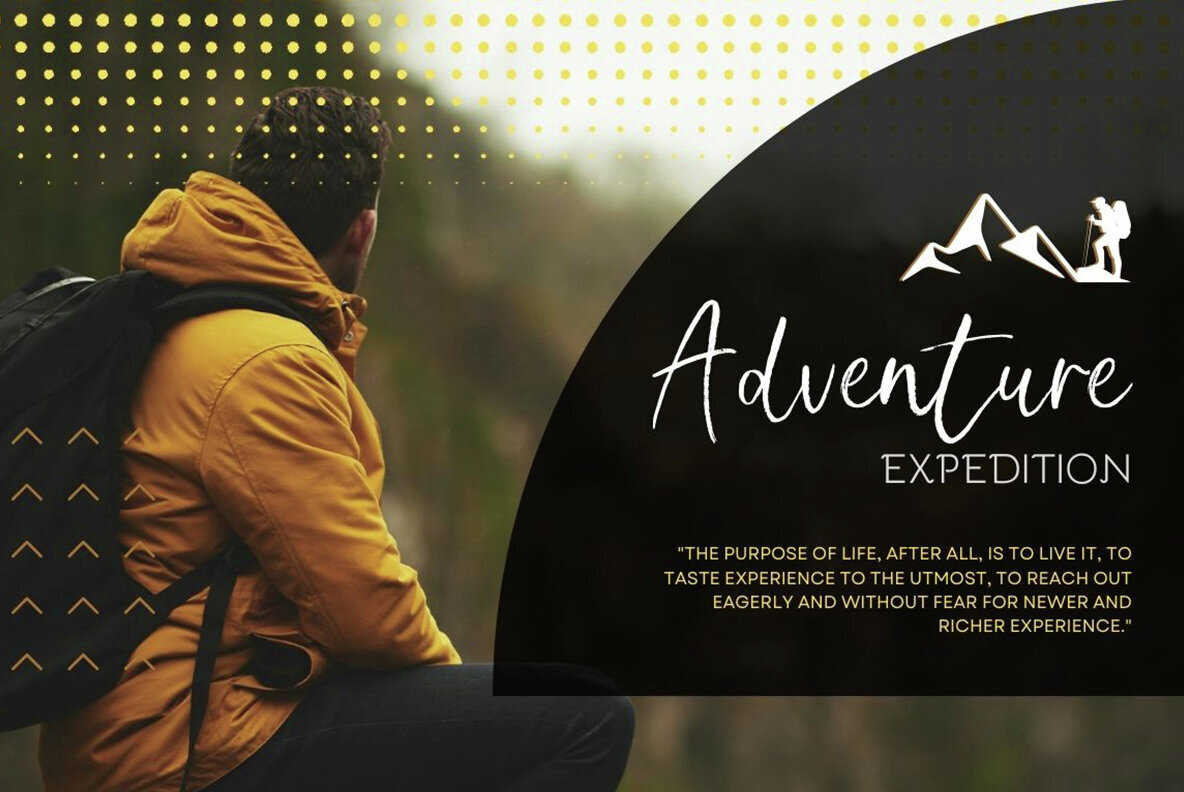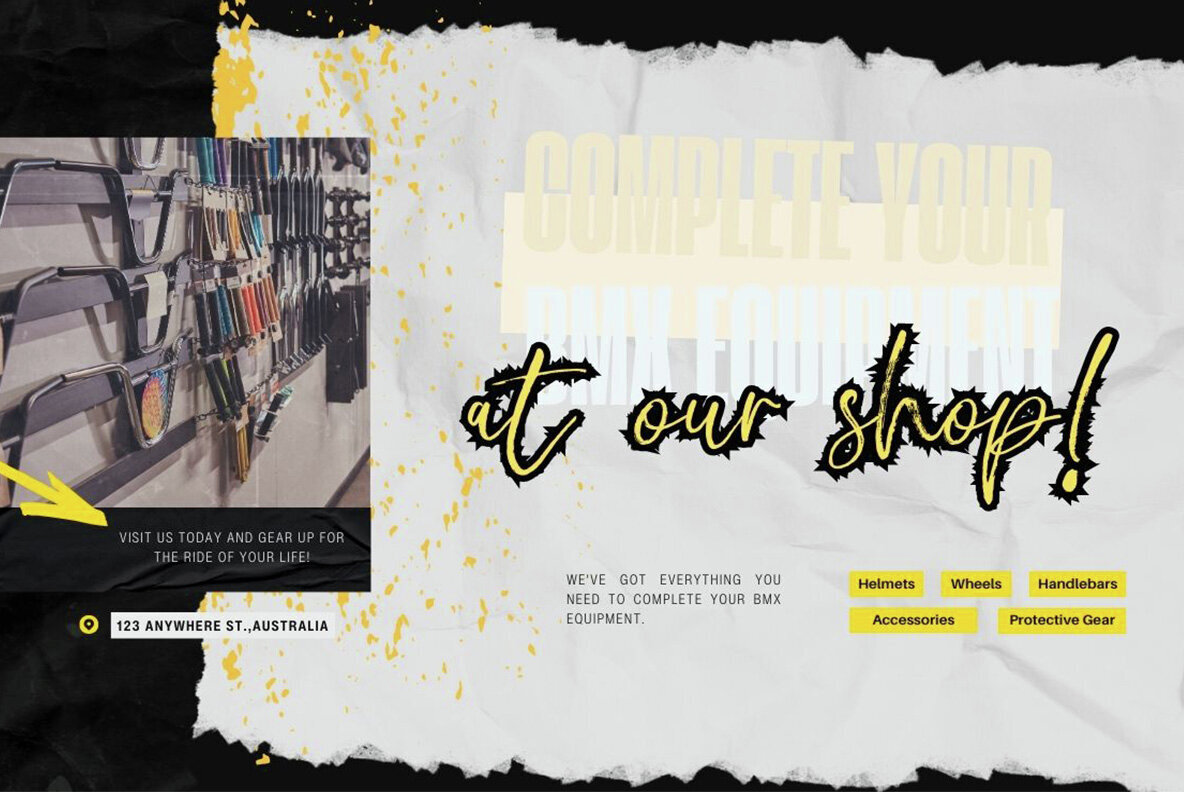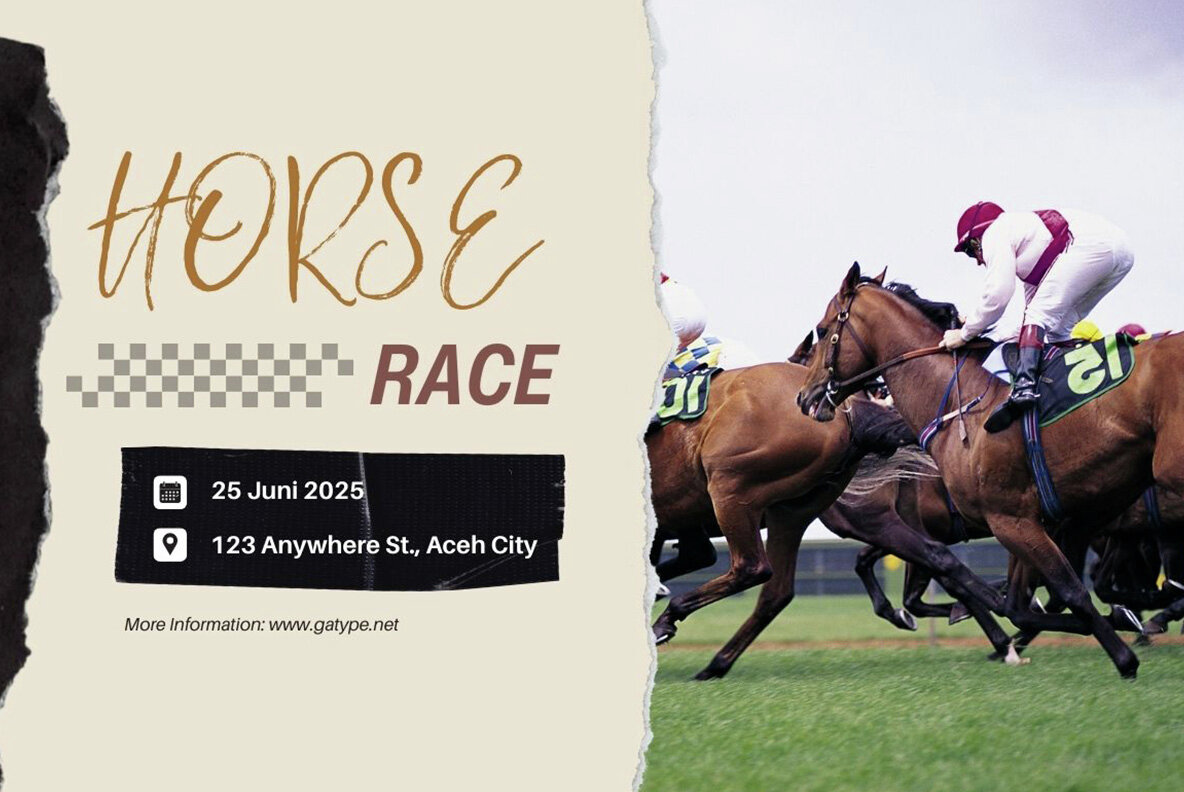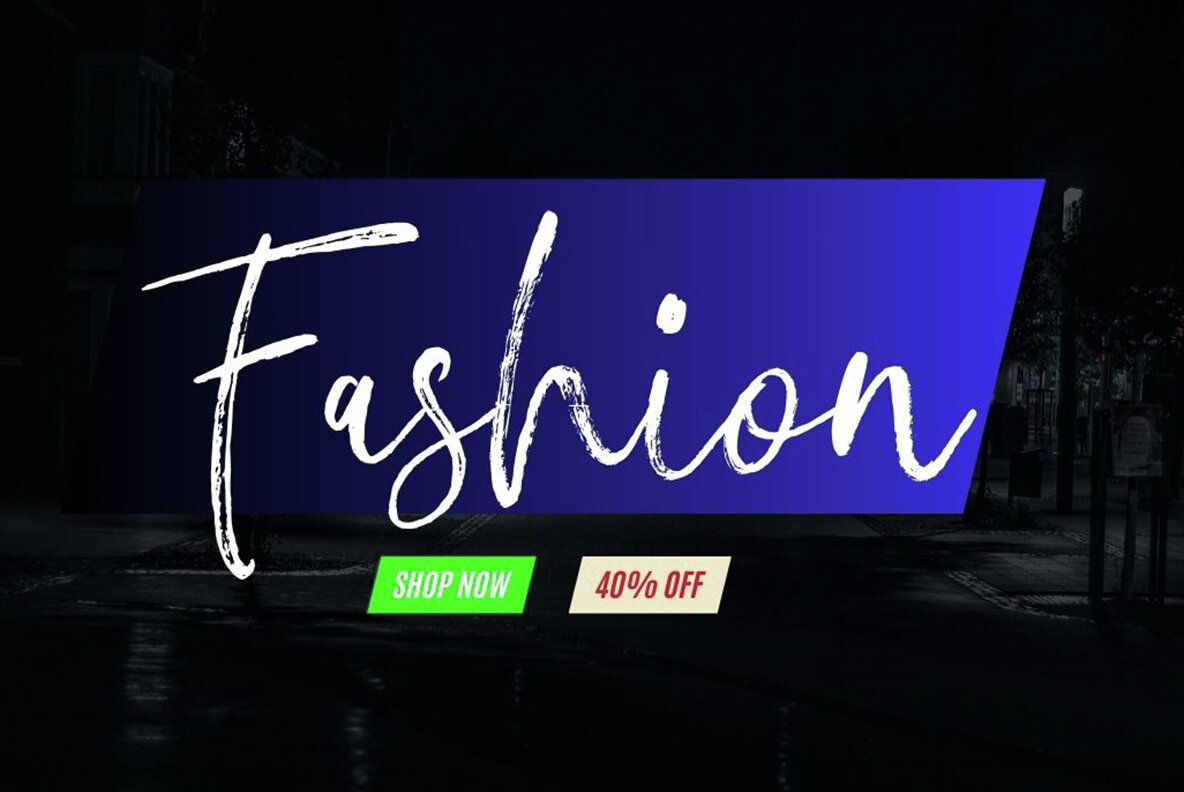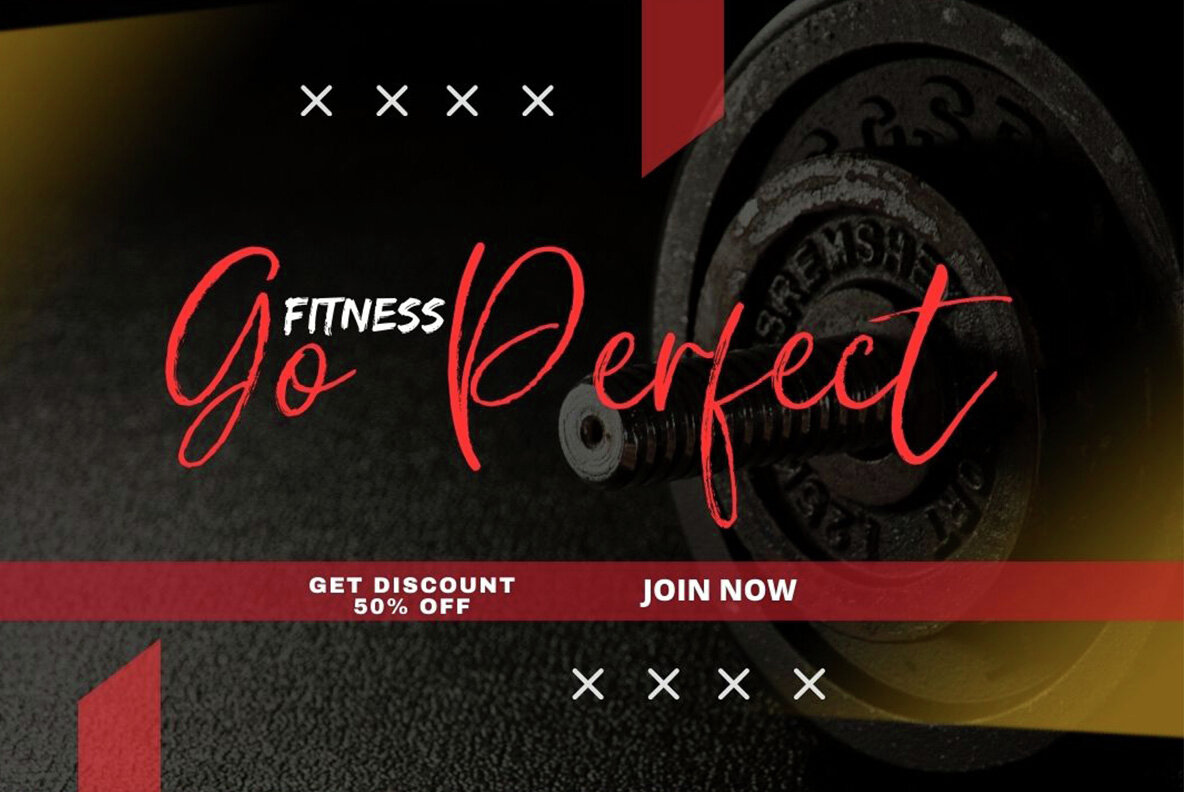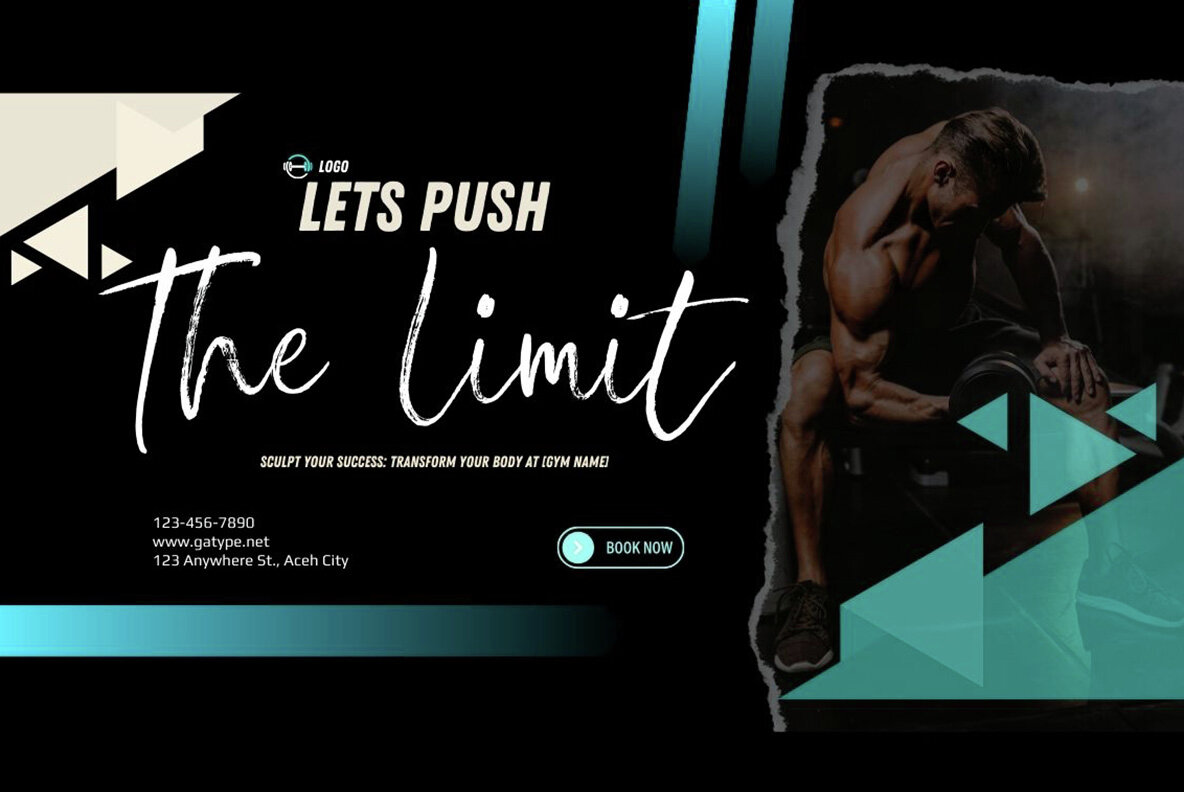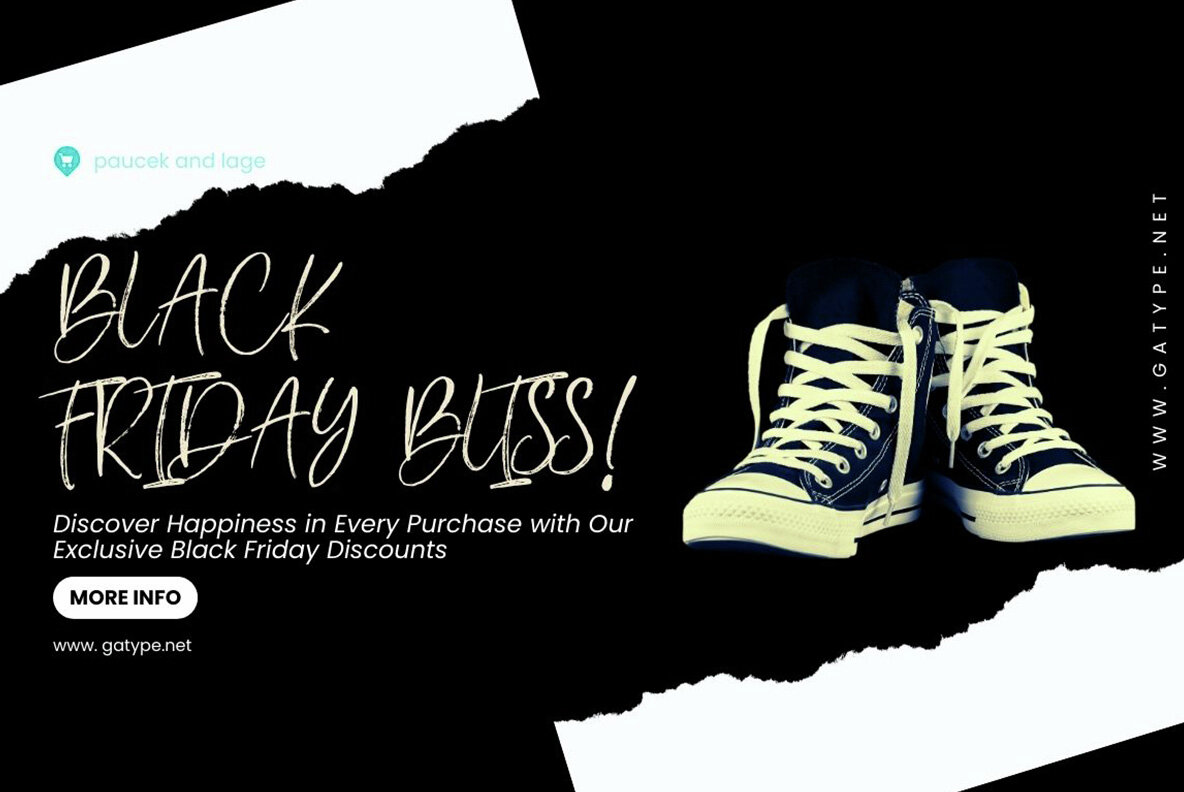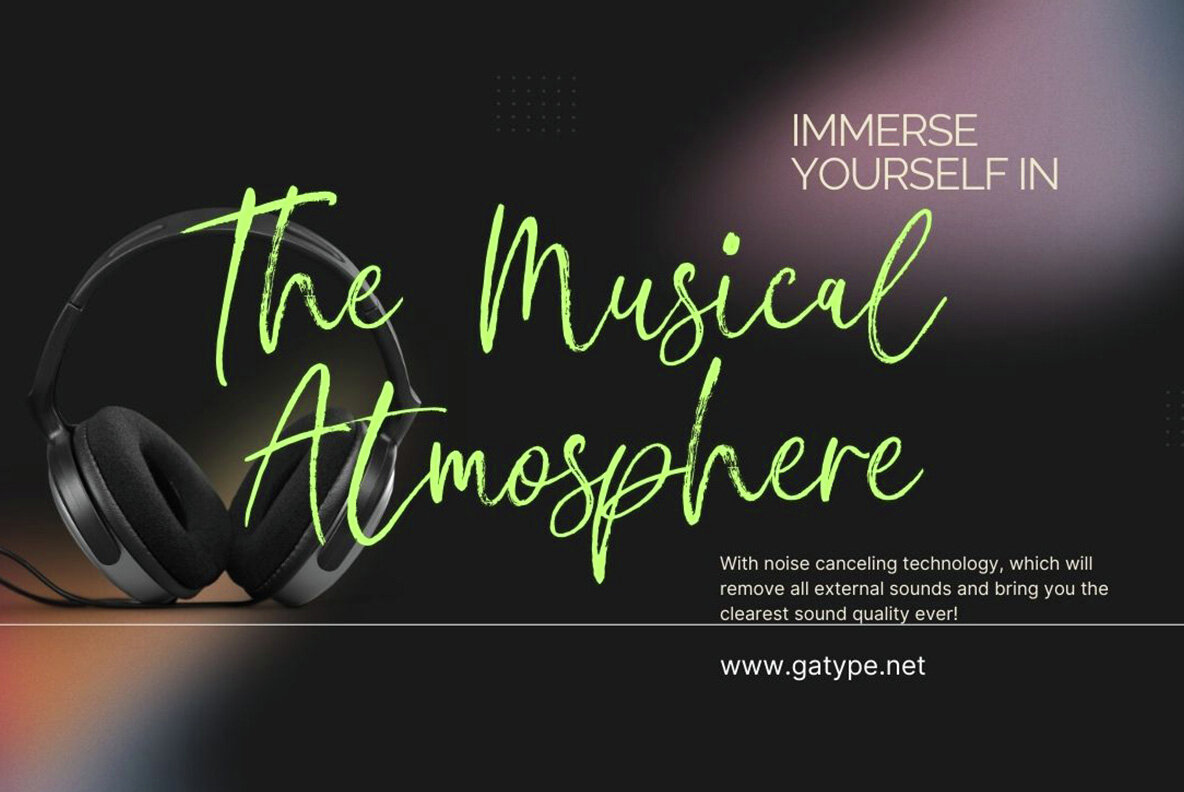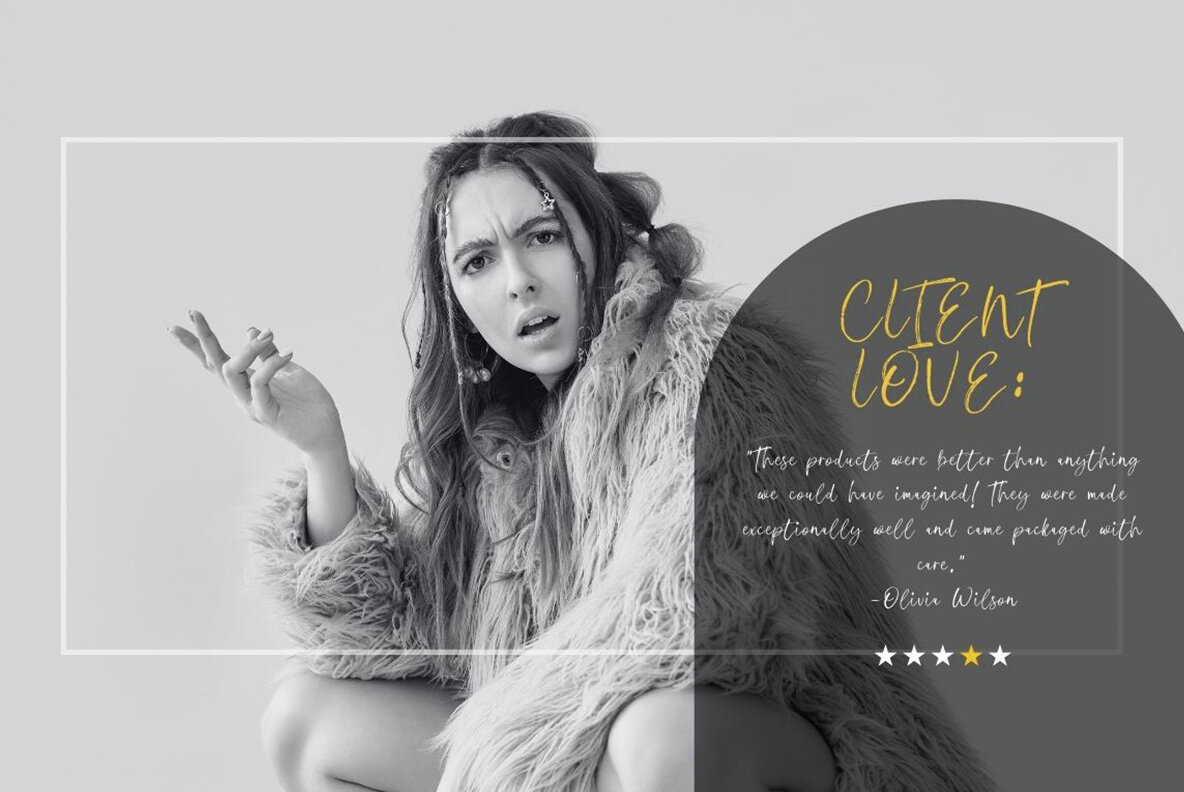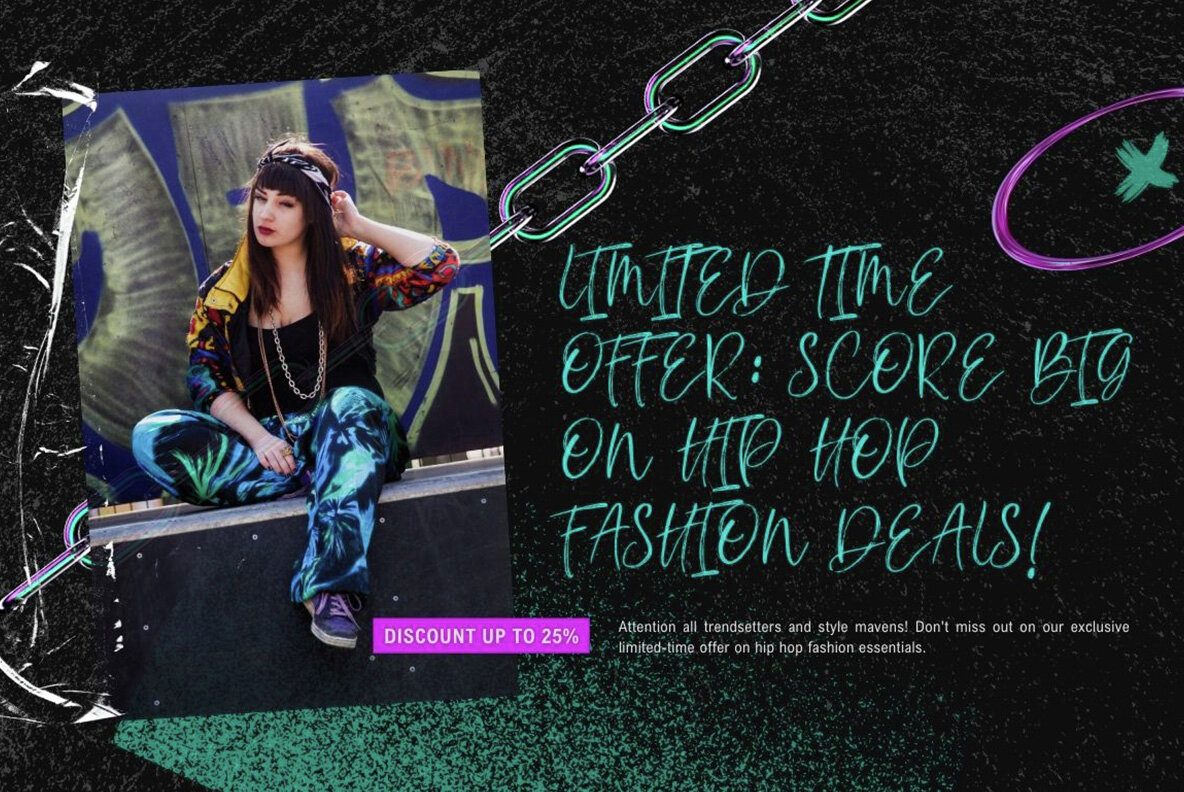
Platinum Font
Platinum Regular
Platinum is a brush-style typeface that captures the authentic essence of hand-painted calligraphy through its bold and natural brush strokes. The font features organically shaped letters with varying thickness, providing a dynamic and textured appearance. This design is ideal for projects seeking a touch of individuality and creativity, such as posters, greeting cards, or edgy branding elements. It delivers a casual yet artistic aesthetic that stands out.
Perfectly suited for digital designers, Platinum contributes a personal flair to any project. Its natural flow and bold presence make it perfect for creative endeavors that demand attention. Whether you're crafting modern branding visuals or designing an engaging poster, this font adds a distinct personal touch. The unique brush style combined with its organic shapes ensures your designs capture a sense of authenticity and innovation.